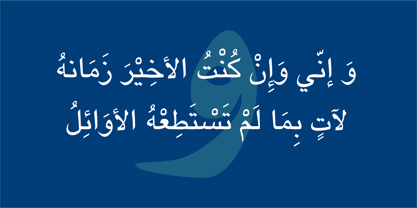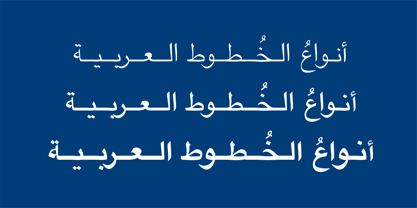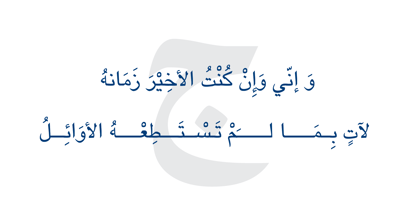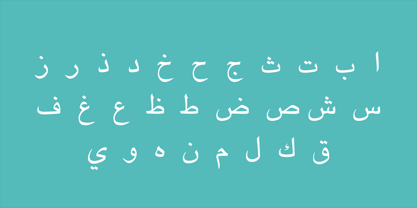
Damascus Pro
La familia tipográfica Damascus Pro fue diseñada por Diwan Font Team y publicada por Diwan Software. Damascus Pro contiene 5 estilos y opciones de paquete familiar. Más información sobre esta familia
Damascus Pro is a contemporary Arabic typeface designed for clarity, simplicity, and versatility in body text. Modeled after the clean and modern aesthetics of Helvetica, this font brings the same level of readability and elegance to Arabic script. The Pro version was extended to include full Unicode Arabic, professional accent placement, and improved glyph outlines and comes in 5 well-balanced weights.